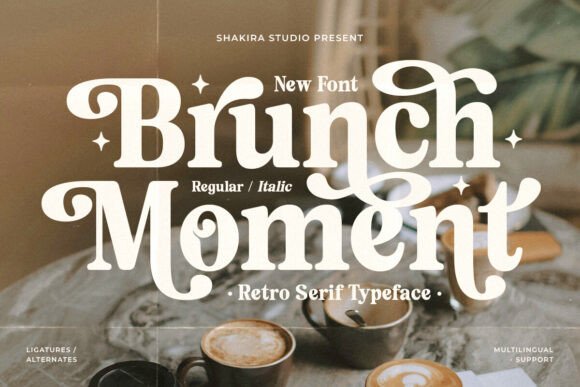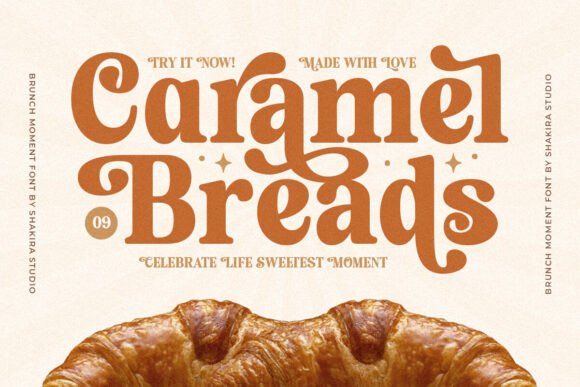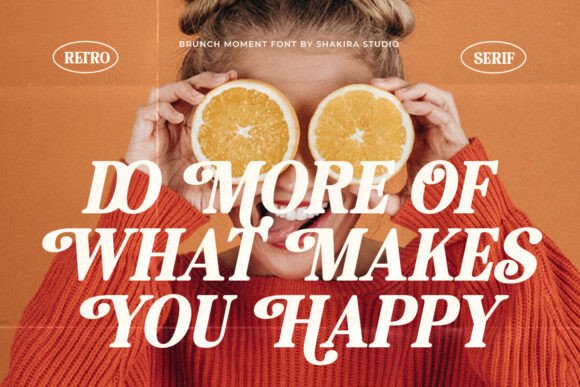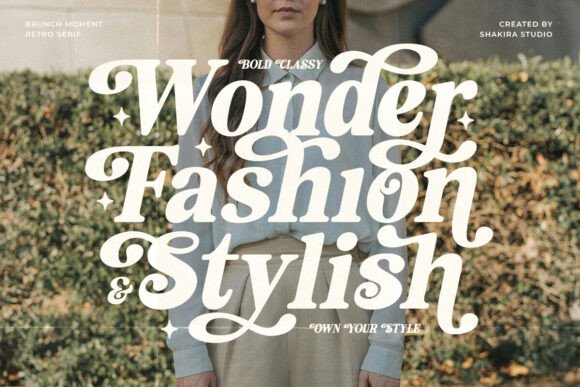
Brunch Moment Font: Retro Serif for Luxe Branding & Social Media
About the Brunch Moment Font
Presenting Brunch Moment Font, a unique and stylish typeface that will make your work stand out. Brunch Moment is a luxurious retro display serif font available in regular and italic styles. It features elegant alternates and stylish ligatures, making it perfect for branding, editorial designs, social media, packaging, and more. Its timeless charm adds sophistication to any project.
Brunch Moment excels in headline treatments, short text blocks, and logo design. Its retro elegance shines in branding for upscale food and beverage, lifestyle products, or boutique hotels. Avoid using it for large bodies of text or UI elements; the high contrast and decorative elements may hinder readability in those contexts.
Consider pairing Brunch Moment with a clean sans-serif like Montserrat for a balanced contrast, or a playful script font like Great Vibes for a more whimsical feel. For a more modern edge, a geometric sans-serif like Futura would create a striking juxtaposition.
The font exudes a sophisticated yet approachable personality; it’s elegant without being stuffy, making it ideal for brands aiming for a refined yet friendly image.
Brunch Moment Font Usage Examples
Brunch Moment Font Example